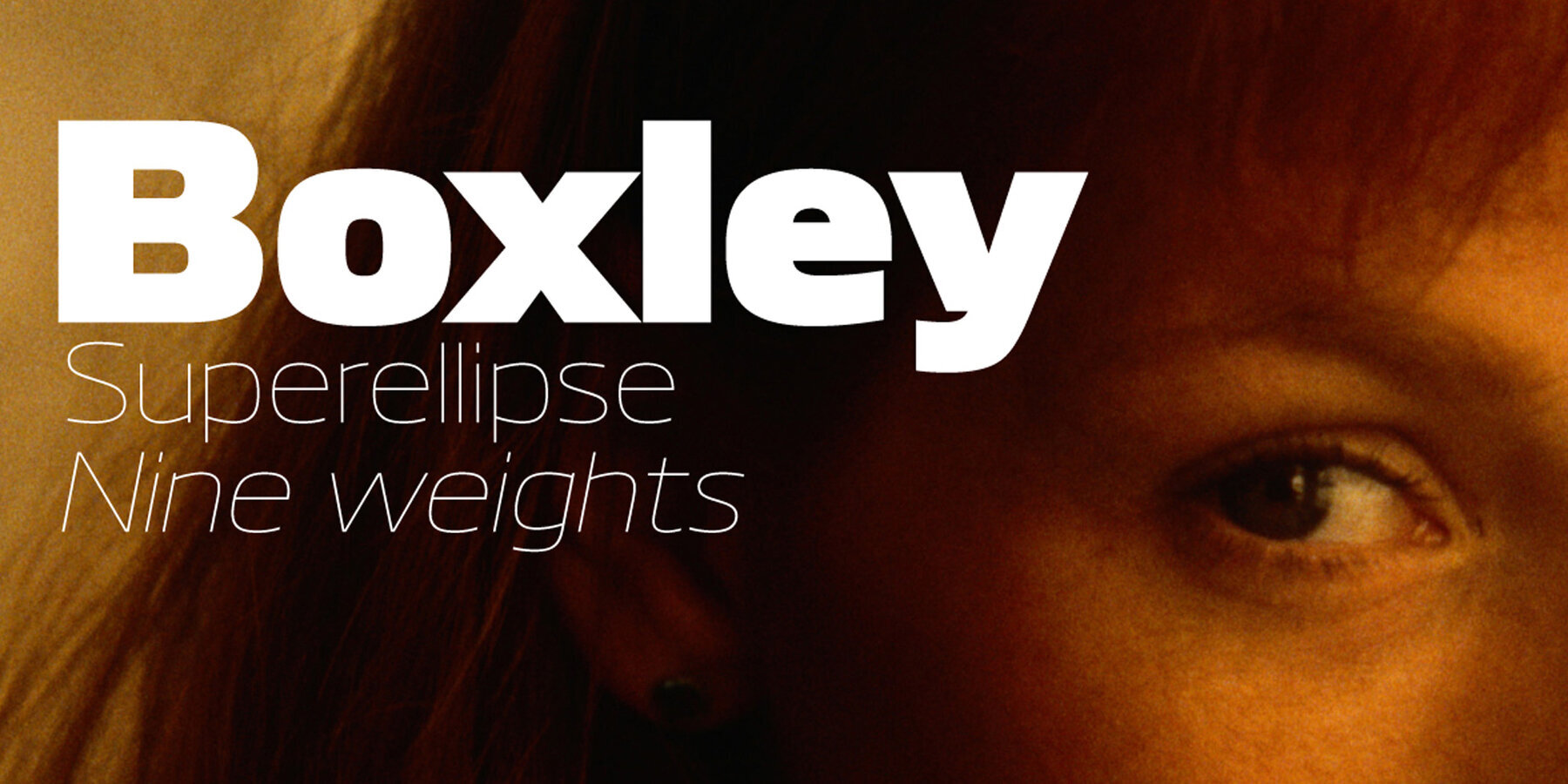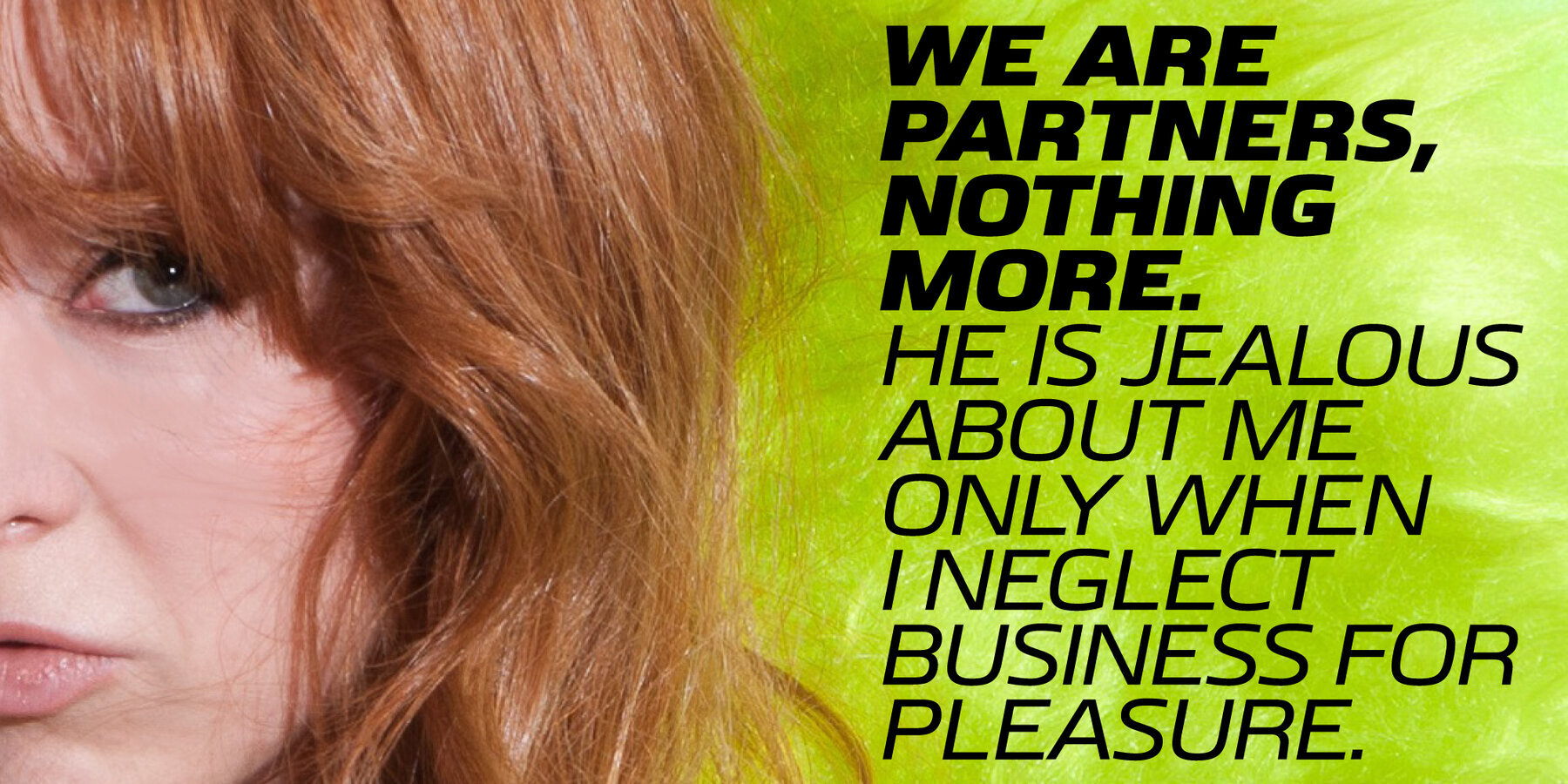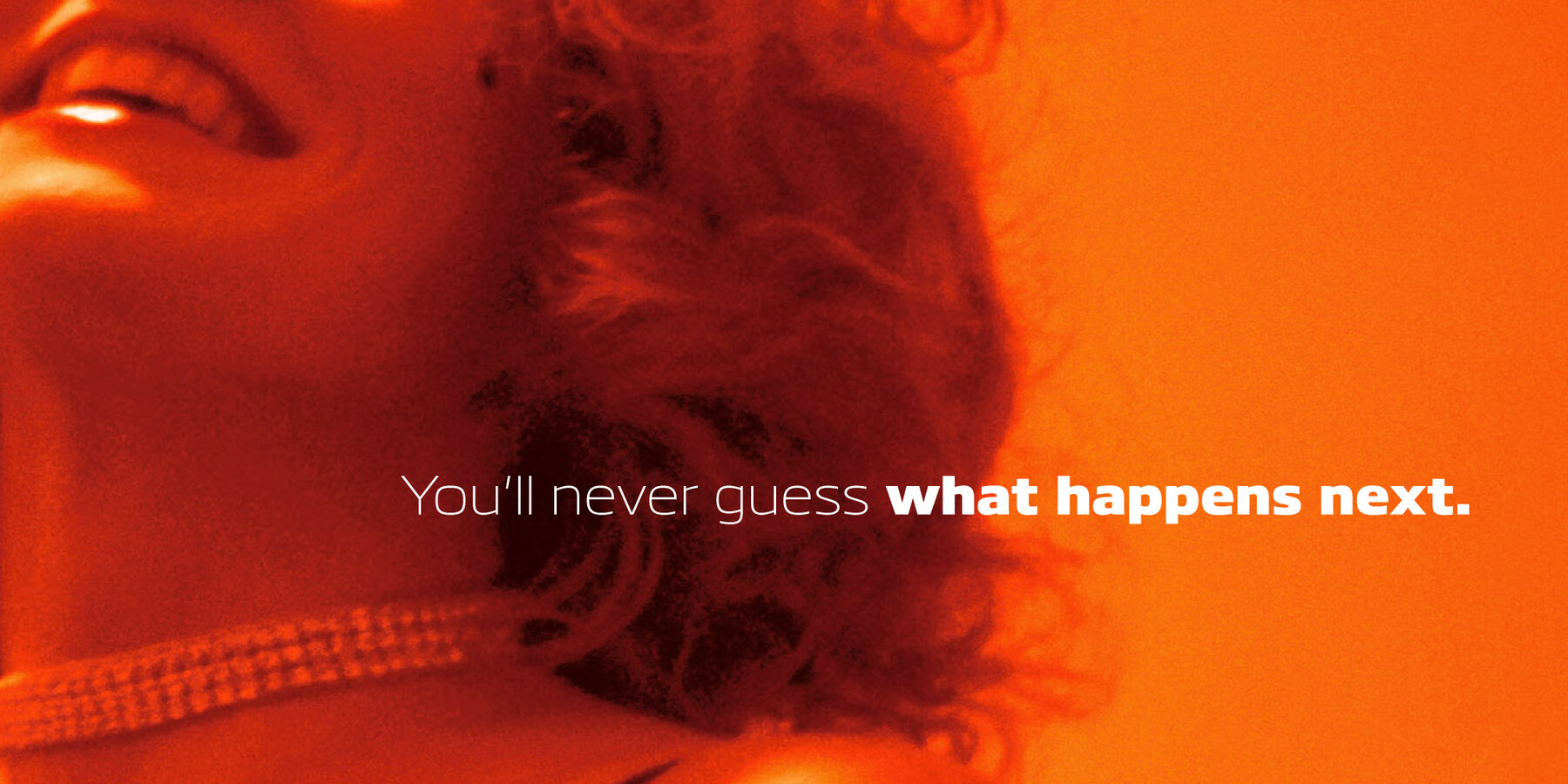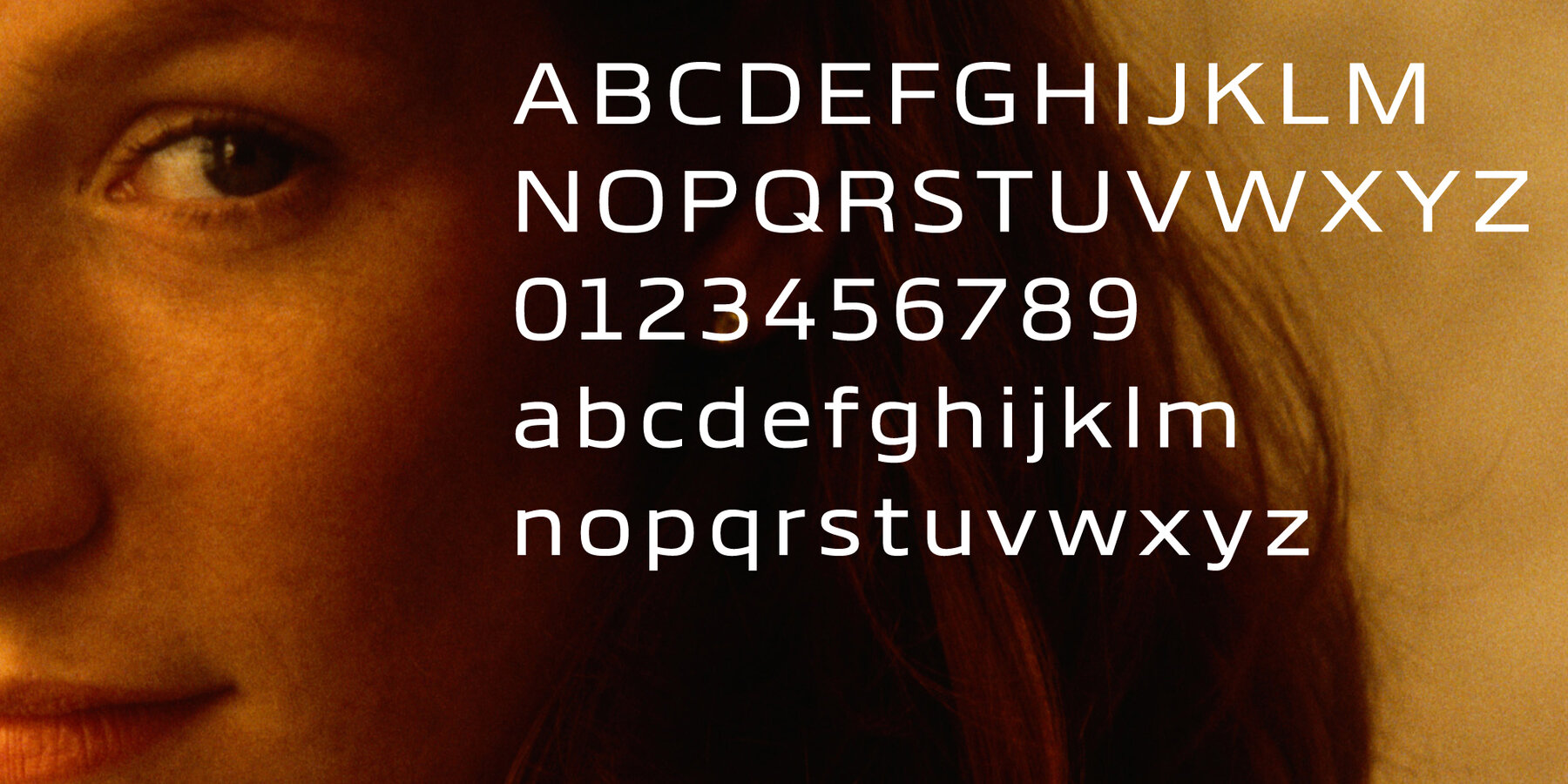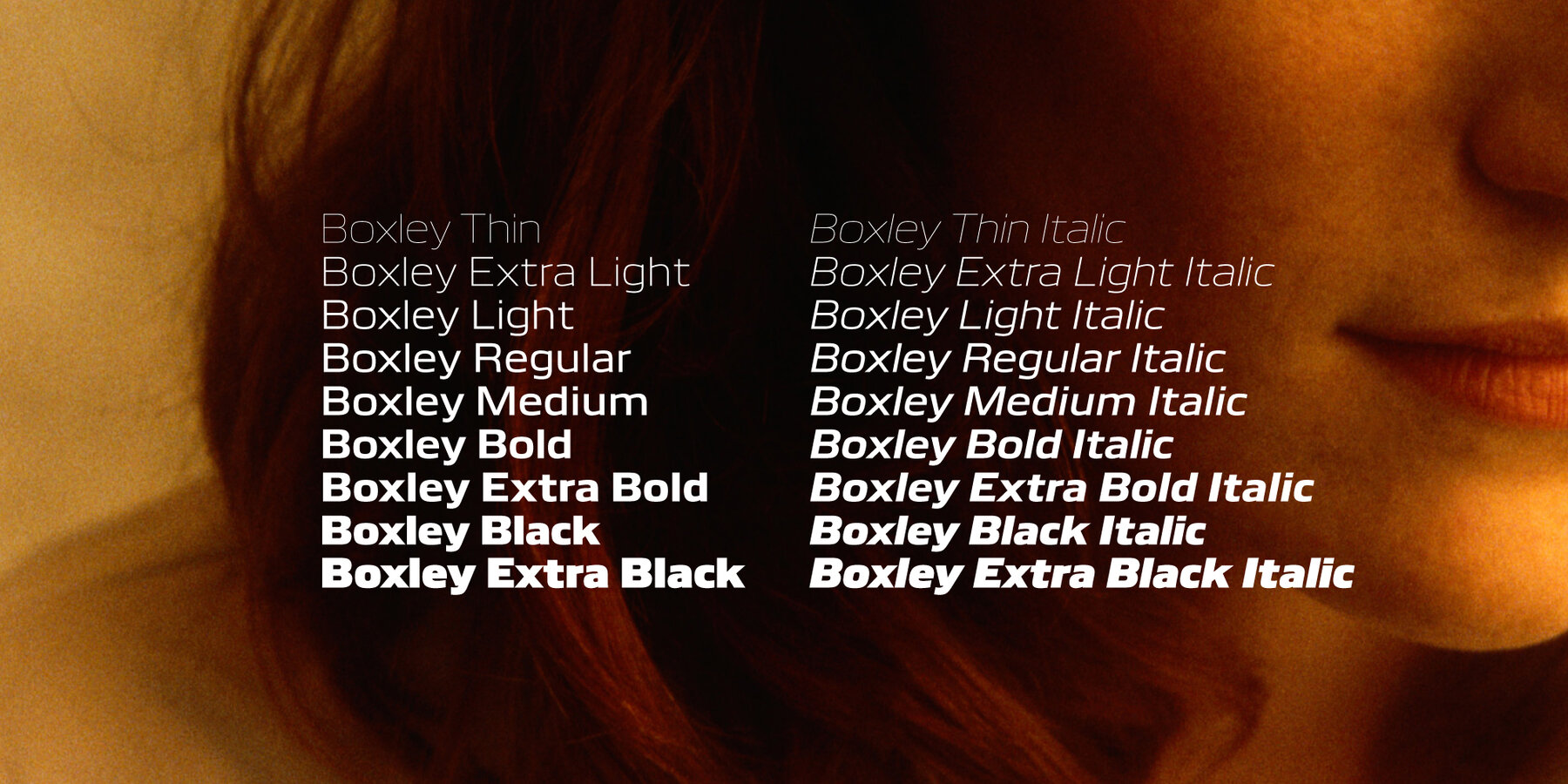
Boxley Font
Superellipse curvature, with its impeccable evocation of modernity, is mated to a sans template of exemplary neutrality, yet distinguished by open counters, a slight horizontal extension, and large-bodied minuscules with short extenders.